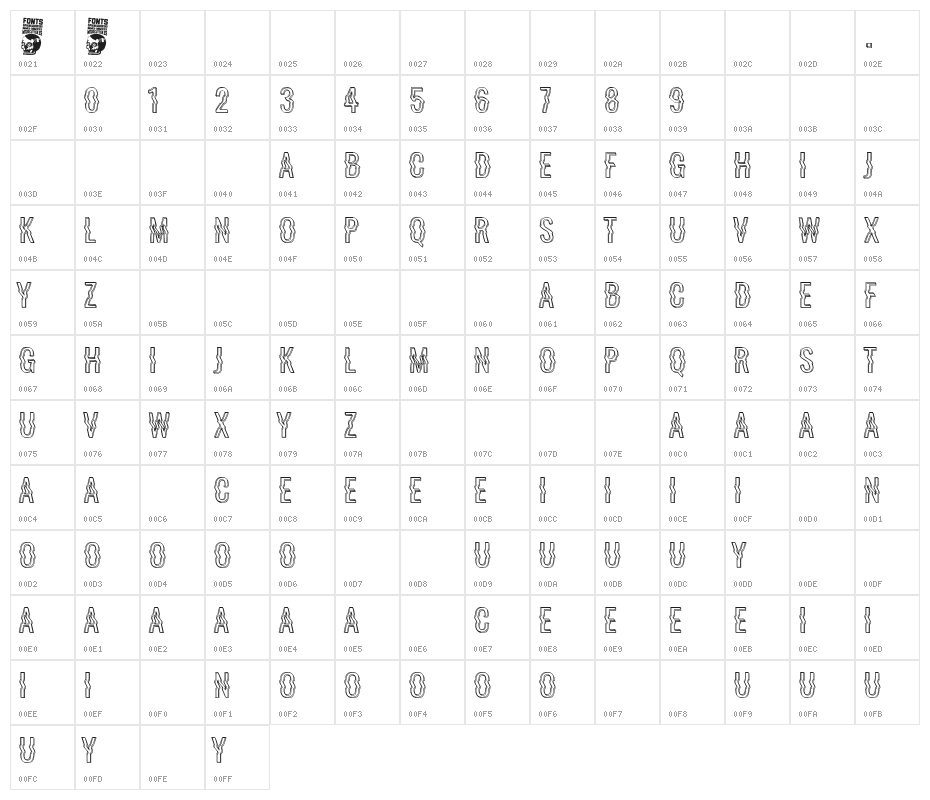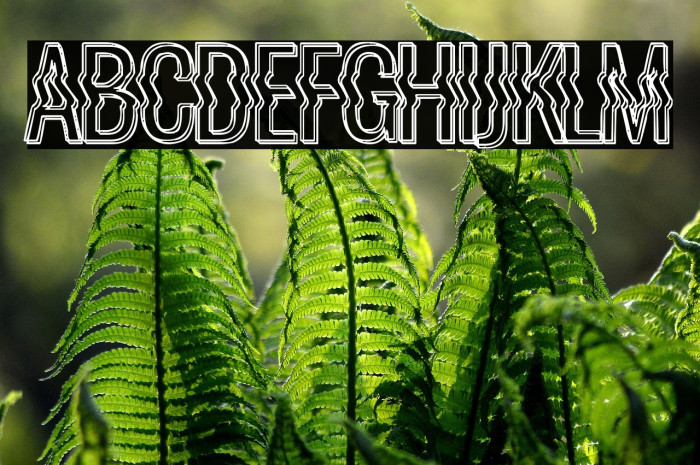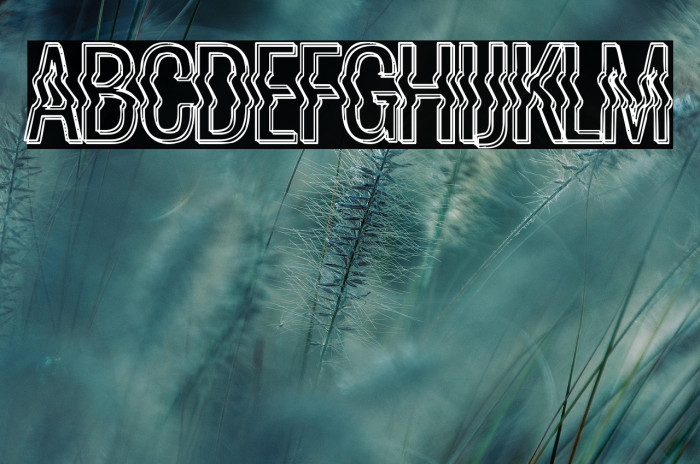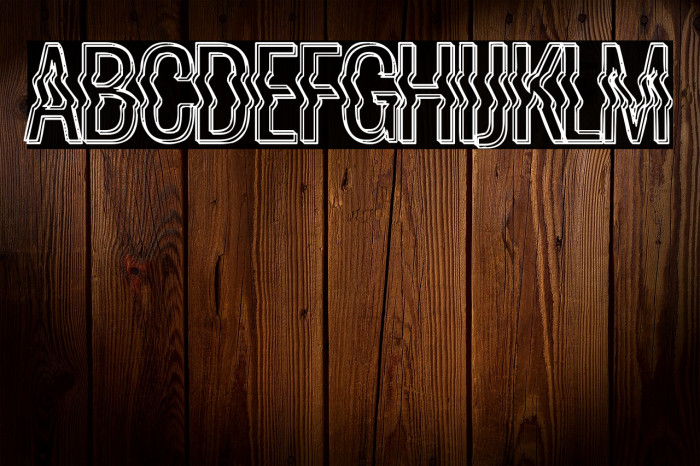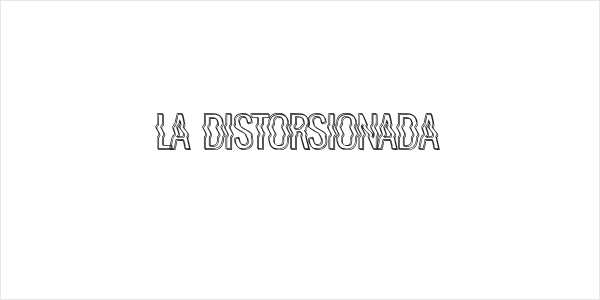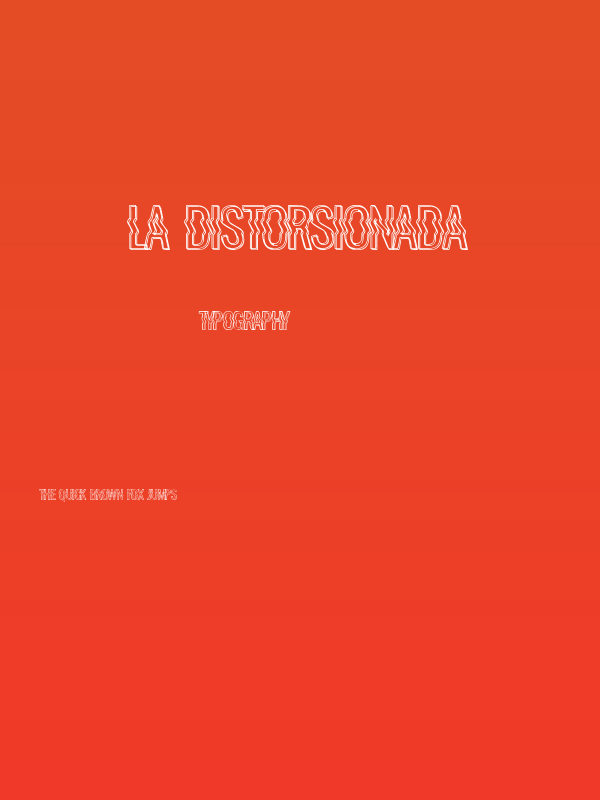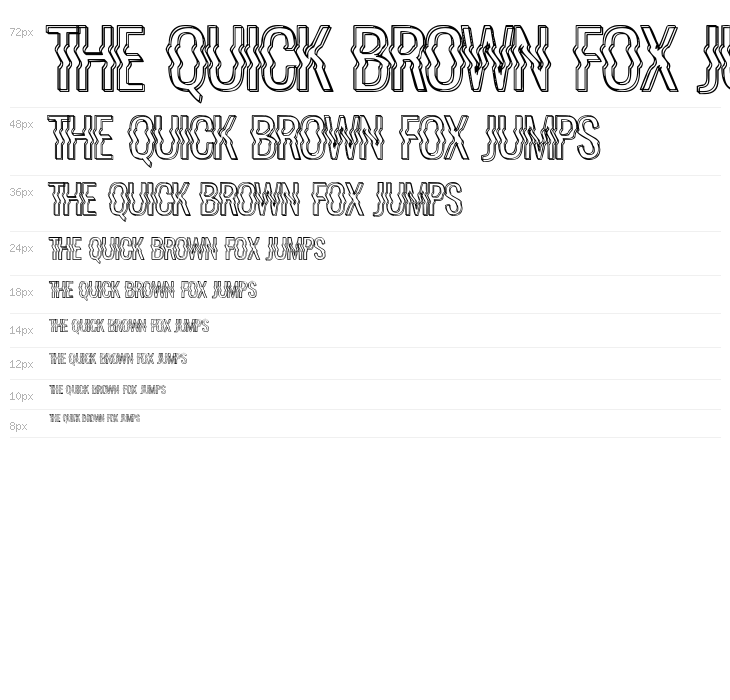
La Distorsionada Font
La Distorsionada Description
This font features a bold, distorted style with a three-dimensional effect created by overlapping outlines. The letters are uppercase and numerals are included, each character exhibiting a unique, warped appearance that gives a sense of movement and depth. The design is eye-catching and unconventional, making it ideal for projects that require a standout, artistic touch. The font's playful distortion is balanced by its consistent line thickness, ensuring readability while maintaining its creative flair.
| Overall Style | Modern, Artistic |
| Use Case | Headlines, Posters, Branding |
| Proposed Projects | Ideal for posters, album covers, and branding that seeks a bold and artistic statement. |